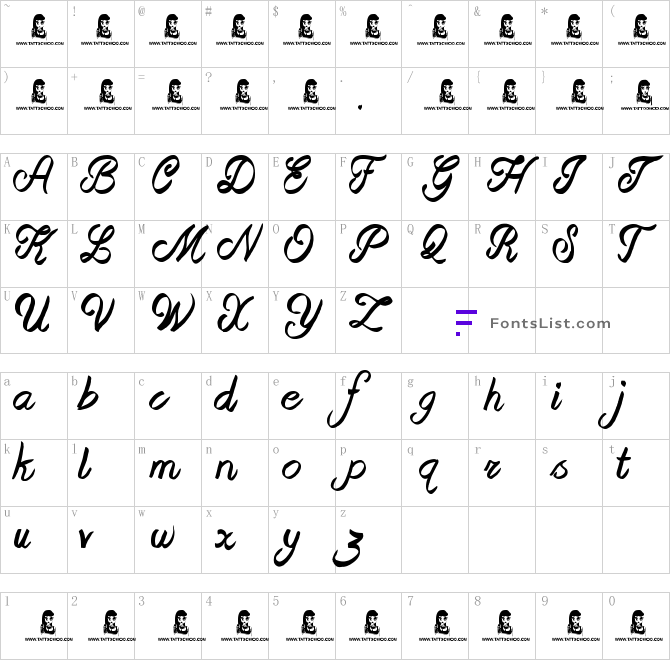
- Font Name:Beast of Avalon
Beast-of-Avalon.otf is a very beautiful artistic font, Beast-of-Avalon.otf is widely used in the design and printing of various books and pictures,Beast-of-Avalon.otf has a strong visual impact,Beast-of-Avalon.otf is a commonly used font in newspapers, magazines and books, and is used in posters, e-commerce Poster design, store design, logo design, font design and other fields.Beast-of-Avalon.